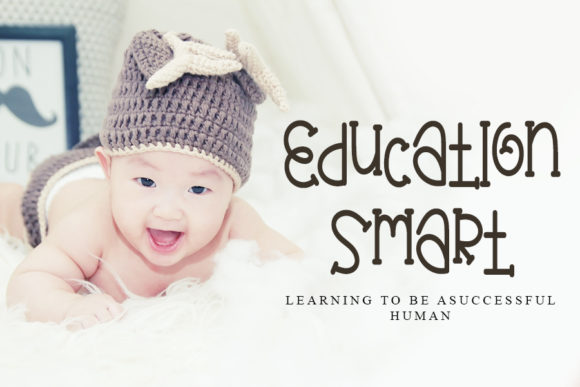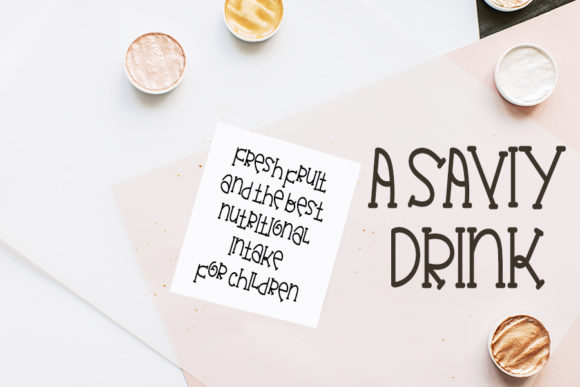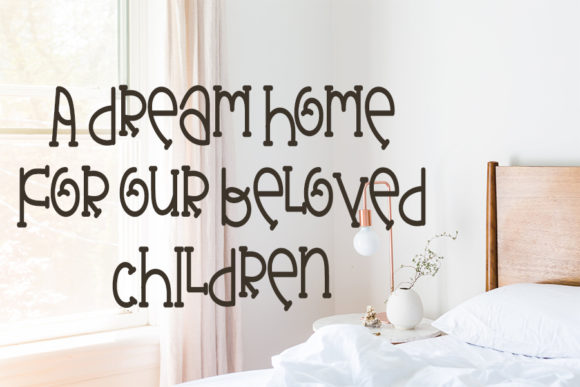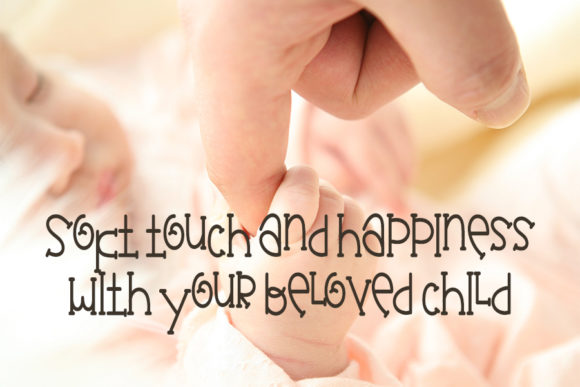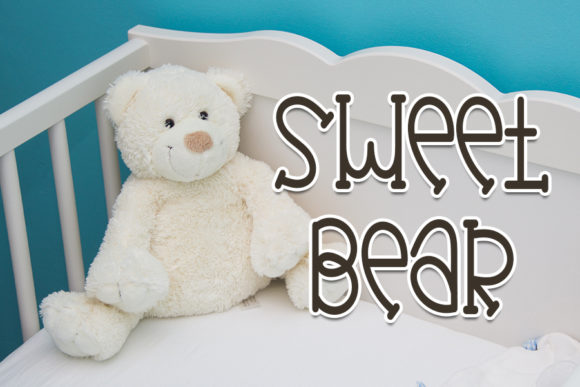
Baby Bold Font: The Perfect Choice for Designers and Crafters
In the world of typography, fonts play a crucial role in conveying messages, expressing emotions, and creating visual identities. For designers and crafters, finding the right font can make all the difference in their creative projects. If you’re looking for a simple, yet impactful font, look no further than Baby Bold Font. In this article, we’ll explore the features, benefits, and uses of Baby Bold Font, and why it’s a great addition to your typography collection.
What is Baby Bold Font?
Baby Bold Font is a simple, tall, and neat handwritten font that exudes elegance and sophistication. Its clean lines, rounded edges, and balanced proportions make it a versatile font suitable for a wide range of applications. Whether you’re designing a logo, creating product packaging, or crafting an invitation, Baby Bold Font is an excellent choice.
Key Features of Baby Bold Font
- Simple and Neat: Baby Bold Font features a straightforward, uncomplicated design that ensures clarity and legibility.
- Tall and Elegant: The font’s tall letters and carefully crafted strokes give it a sophisticated and refined appearance.
- Handwritten: The font’s handwritten nature adds a touch of warmth and personality to your designs.
- Versatile: Baby Bold Font can be used for various projects, from branding and packaging to invitations, quotes, and more.
Benefits of Using Baby Bold Font
So, why should you choose Baby Bold Font for your design projects? Here are some benefits that make it an attractive option:
- Ease of Use: Baby Bold Font is easy to read and understand, making it perfect for body text, headings, and titles.
- High Versatility: The font’s simplicity and elegance make it suitable for various industries, from fashion and beauty to food and lifestyle.
- Unique Identity: Baby Bold Font helps you create a distinctive visual identity that sets your brand or project apart from others.
- Time-Saving: With Baby Bold Font, you can quickly create professional-looking designs without spending hours on typography.
Use Cases for Baby Bold Font
Baby Bold Font is an incredibly versatile font that can be used in a variety of design projects. Here are some ideas to get you started:
- Branding: Use Baby Bold Font as a logo font or for signage to create a lasting impression.
- Product Packaging: Add a touch of elegance to your product packaging with Baby Bold Font.
- Invitations: Create beautiful invitations, save-the-dates, and thank-you cards with Baby Bold Font.
- Quotes and Posters: Use Baby Bold Font to create inspiring quotes, posters, and prints.
- T-Shirts and Merchandise: Design eye-catching t-shirts, stickers, and other merchandise with Baby Bold Font.
Tips for Using Baby Bold Font
To get the most out of Baby Bold Font, here are some tips to keep in mind:
- Pair with Other Fonts: Experiment with pairing Baby Bold Font with other fonts to create visual interest and contrast.
- Adjust Font Size: Adjust the font size to suit your design needs, from large headings to smaller body text.
- Play with Colors: Try out different colors and textures to add depth and personality to your designs.
In conclusion, Baby Bold Font is an excellent choice for designers and crafters looking for a simple, yet impactful font. Its elegant design, versatility, and ease of use make it perfect for a wide range of applications. Whether you’re creating branding, product packaging, invitations, or merchandise, Baby Bold Font is sure to elevate your designs and help you achieve your creative goals.